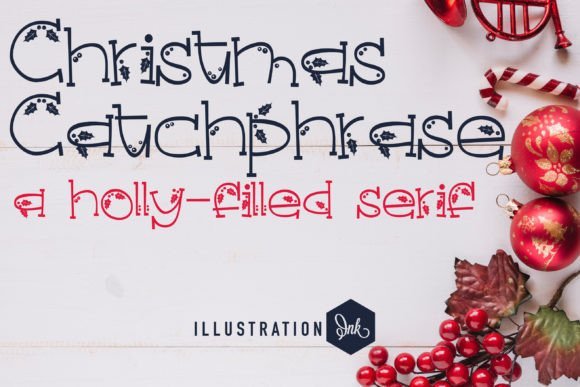
Deck the Halls with Holiday Cheer: Introducing the Christmas Catchphrase Font
As a designer, have you ever found yourself scrolling through font options, searching for that perfect, festive touch to add to your holiday projects? I know I have. And then, like a gift under the tree, you stumble upon it – a font that perfectly captures the magic of the season. For me, that font is the Christmas Catchphrase Font, a hand-crafted, handwritten masterpiece that features Christmas holly on a hand-written print.
This enchanting font is not just a pretty face; it’s a valuable tool for designers looking to add a touch of whimsy and nostalgia to their projects. Whether you’re creating invitations, greeting cards, or social media graphics, the Christmas Catchphrase Font is sure to bring a smile to your audience’s faces. Its unique, hand-crafted design makes it the perfect choice for designers looking to add a personal touch to their work.
Christmas Catchphrase Font Key Features
- Font Family: Christmas Catchphrase is a unique, hand-drawn font designed specifically for festive occasions. It includes a variety of catchphrases and phrases commonly used during Christmas.
- Character Count: The font includes over 150 characters, including uppercase and lowercase letters, numbers, and special characters.
- Unique Characteristics: Christmas Catchphrase features a playful, handwritten style with intricate details and flourishes, making it perfect for adding a touch of whimsy to holiday designs.
- Language Support: The font includes full support for the Latin alphabet, as well as support for a range of European languages.
Designer Review: Christmas Catchphrase Font
First of all, let’s talk about the things that work well with this font. ✨ It’s incredibly festive and fun, perfect for Christmas-themed designs. The font is bold, playful, and features a variety of catchphrases that add a personal touch to your designs. The use of bold, colorful letters is a great way to grab the viewer’s attention and make your designs stand out. Additionally, the font is highly customizable, allowing you to adjust the size, color, and spacing to fit your design needs.
Now, let’s talk about the limitations of this font. ⚠️ One of the main issues is that it’s a bit overused, and you may find that it’s been used in many different designs already. This can make it difficult to stand out and be unique. Additionally, the font is not suitable for all types of designs, particularly those that require a more formal or professional tone. Finally, some of the catchphrases may not be suitable for certain audiences or contexts.
Overall, I think the Christmas Catchphrase Font is a fun and festive addition to any design project. While it has its limitations, it’s a great choice for those looking to add a bit of holiday cheer to their designs. Just be sure to use it sparingly and in the right context.
- Pros: ✨ Festive and fun, bold and playful, highly customizable
- Cons: ⚠️ Overused, not suitable for formal or professional designs, some catchphrases may not be suitable for all audiences
Christmas Catchphrase Font: A Practical Application Guide
The Christmas Catchphrase Font is ideal for:
- Holiday card designs
- Party invitations
- Seasonal social media posts
- Gift tags and labels
To get the most out of the Christmas Catchphrase Font, try:
- Combining it with festive graphics and images
- Using it in conjunction with other holiday-themed fonts
- Experimenting with different font sizes and styles
Alternative Christmas Fonts for Designers
Great Vibes is a playful, handwritten font that’s perfect for creating a festive atmosphere. It’s ideal for use in social media posts, invitations, and other promotional materials. In comparison to Christmas Catchphrase Font, Great Vibes has a more casual and carefree feel, making it suitable for younger audiences.